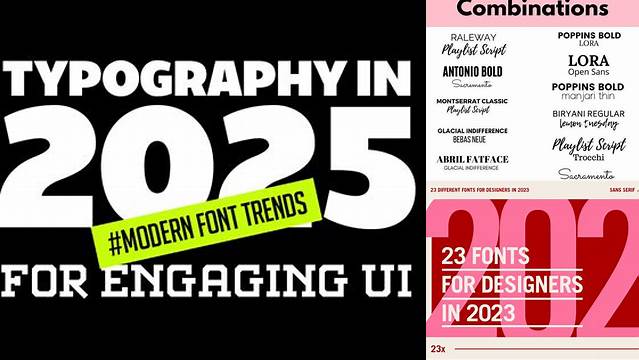
Font Combinations 2025: Trends And Best Practices
Hey design enthusiasts! Ready to dive into the exciting world of typography and explore the hottest font combinations that will dominate 2025? Fonts are more than just text; they are the voice of your brand, the personality of your message, and the visual hook that grabs your audience's attention. In this article, we'll unpack the art of selecting and pairing fonts, explore the trends shaping the future of typography, and give you practical tips to create visually stunning designs. Get ready to elevate your design game and make your content pop!
Understanding the Fundamentals of Font Pairing
Before we jump into the trends, let's get our basics right. The perfect font pairing is like a harmonious duet—each font complements the other, creating a cohesive and visually appealing composition. Think of it as a delicate dance where each font's character, weight, and style contribute to the overall rhythm. A successful pairing should enhance readability, convey your message effectively, and create a memorable impression.
Firstly, let's look at serif and sans-serif pairings. This classic combination relies on the contrast between the ornate serifs (the small strokes at the end of letters) and the clean, streamlined sans-serif fonts. This contrast adds visual interest and helps to guide the reader's eye through the text. Try a serif font like Playfair Display (elegant and classic) for headings and a sans-serif like Open Sans (clear and modern) for body text. The mix of elegance and clarity is a timeless approach that works wonders.
Next up, we have monospaced and display fonts. Monospaced fonts, where each character takes up the same amount of horizontal space, have a unique retro appeal. Paired with a bold display font, such as Bebas Neue for headlines, you get a striking contrast. This combination is excellent for highlighting quotes or creating a sense of order in a design, like code snippets. Display fonts, known for their distinctive and often oversized characteristics, grab attention. They are best utilized sparingly, typically for titles and headlines, because they may lose their readability in extended blocks of text. Choosing fonts that have a high degree of contrast is a must for legibility, and this rule of thumb will help ensure your designs achieve maximum effectiveness.
Lastly, consider your brand's personality when choosing your font pairing. Are you aiming for a feeling of professionalism, playfulness, or sophistication? Select fonts that mirror your desired tone. A sleek sans-serif might be perfect for a tech company, while a serif font would fit a luxury brand. Experiment with various fonts, consider their weights, styles, and how they interact with each other, and then be ready to adjust accordingly. Understanding and mastering these fundamentals is the first step towards creating winning designs!
Trending Font Combinations for 2025: What's Hot?
As the design world evolves, so do the typography trends. Staying up-to-date with the latest combinations ensures your designs feel fresh and relevant. So, what are the fonts that will be stealing the spotlight in 2025? Let’s take a look.
Modern and Minimalist: The trend towards minimalism continues, with a focus on clean lines and uncluttered designs. The modern font pairings emphasize simplicity and legibility. One of the trendiest is Montserrat (a geometric sans-serif that is versatile) paired with Roboto Slab (a slab serif that adds personality). This combo is great for websites and branding materials. They are both easy to read and exude a contemporary vibe. This pairing gives a nod to modernity while retaining a level of timelessness. The fonts work well together because their underlying structures are similar, but their forms offer distinct variations.
Bold and Playful: In contrast to minimalism, we're seeing a resurgence of bold and playful designs. Pairing Poppins (a rounded sans-serif) with Permanent Marker (a handwritten font) is perfect. This mix creates a fun and engaging look. This style works well for projects needing a touch of quirkiness. It's the go-to style for anything from children's books to social media posts that grab attention. This bold juxtaposition is all about breaking the rules and having fun. This helps create eye-catching graphics.
Elegant and Sophisticated: If you're going for a classy look, Lora (a well-balanced serif) paired with Raleway (a stylish sans-serif) is your best bet. This is an ideal choice for luxury brands. The contrast between the elegant serif and the refined sans-serif gives a sense of refinement and quality. Using these fonts can easily boost the level of professionalism. They bring a touch of timeless grace to your designs, making them perfect for high-end brands and sophisticated projects. These fonts exude a feeling of sophistication.
Vintage Revival: Retro fonts are back with a bang! Pairing a classic font like Bodoni (a high-contrast serif) with a modern sans-serif like Lato gives a nod to the past while staying contemporary. This can be ideal for nostalgic themes or designs that want to evoke a sense of history. This combination gives designs an authentic and slightly nostalgic appeal.
Best Practices for Choosing and Pairing Fonts
Choosing the right font pairing is an art and a science. Here are some best practices to guide you:
- Readability is King: Always prioritize legibility, especially in body text. Make sure your chosen fonts are easy to read at different sizes and on various devices. A good font combination should not strain the eyes.
Conclusion: Crafting the Perfect Typography for 2025
As we look ahead to 2025, remember that the best font combination is the one that perfectly embodies your brand's essence and resonates with your audience. Embrace the trends but also bring your creativity and unique perspective to the table. Remember to be consistent in your design and experiment with different pairings. By understanding the fundamentals of typography, staying informed about current trends, and using the right tools, you will be well on your way to designing stunning visuals. Now go forth and start designing! Happy font pairing!